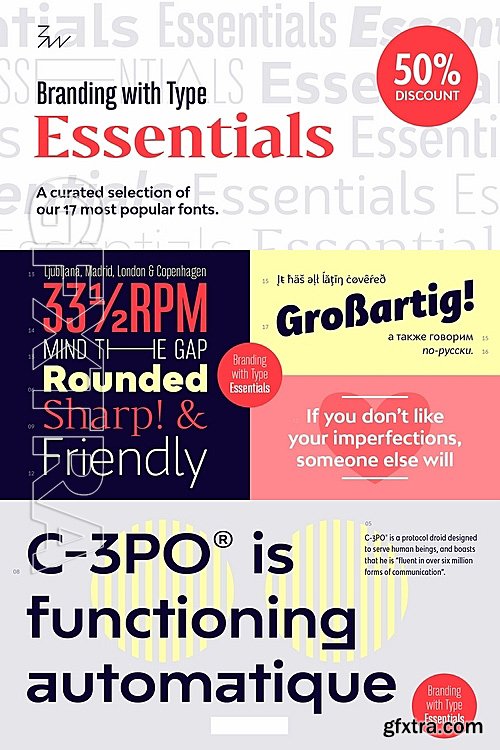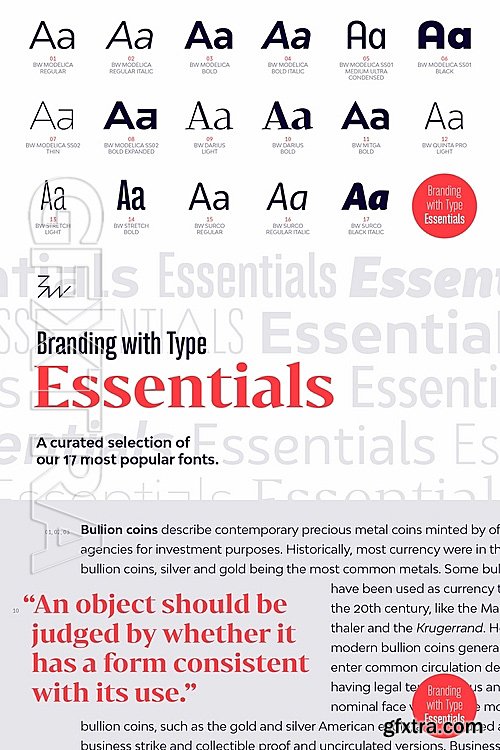
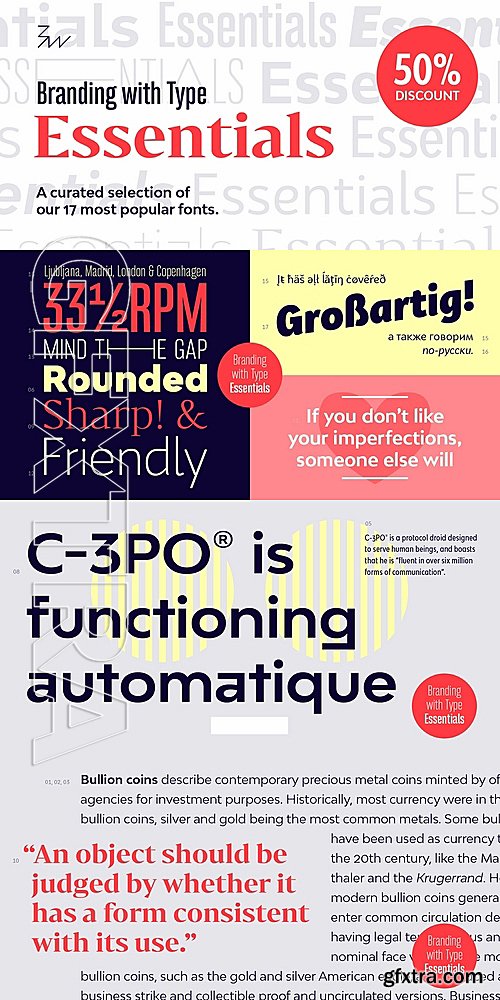
Branding with Type Essentials is a curated selection of 17 of the foundry’s most popular fonts, providing the best starting point into Branding with Type’s growing library.
The collection provides a versatile kit for graphic designers looking for that extra bit of personality without compromising on quality: From the hand-picked styles of the geometric grotesque Bw Modelica (a true workhorse) to the refinement of the elegant wedge serif Bw Darius Light.
The fonts include extensive OpenType features and support for all European Latin languages, with Bw Surco and Bw Quinta Pro also supporting Cyrillic.